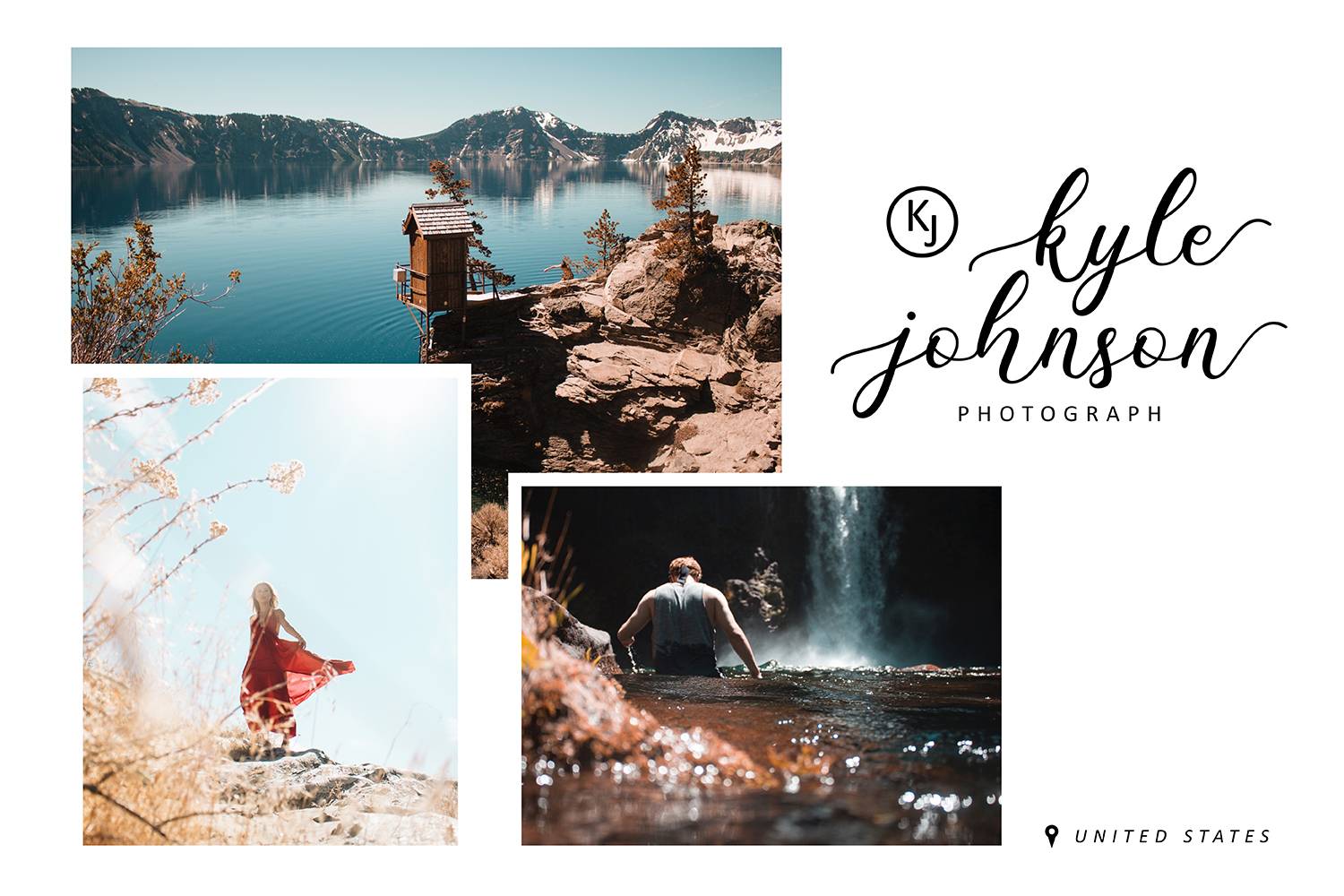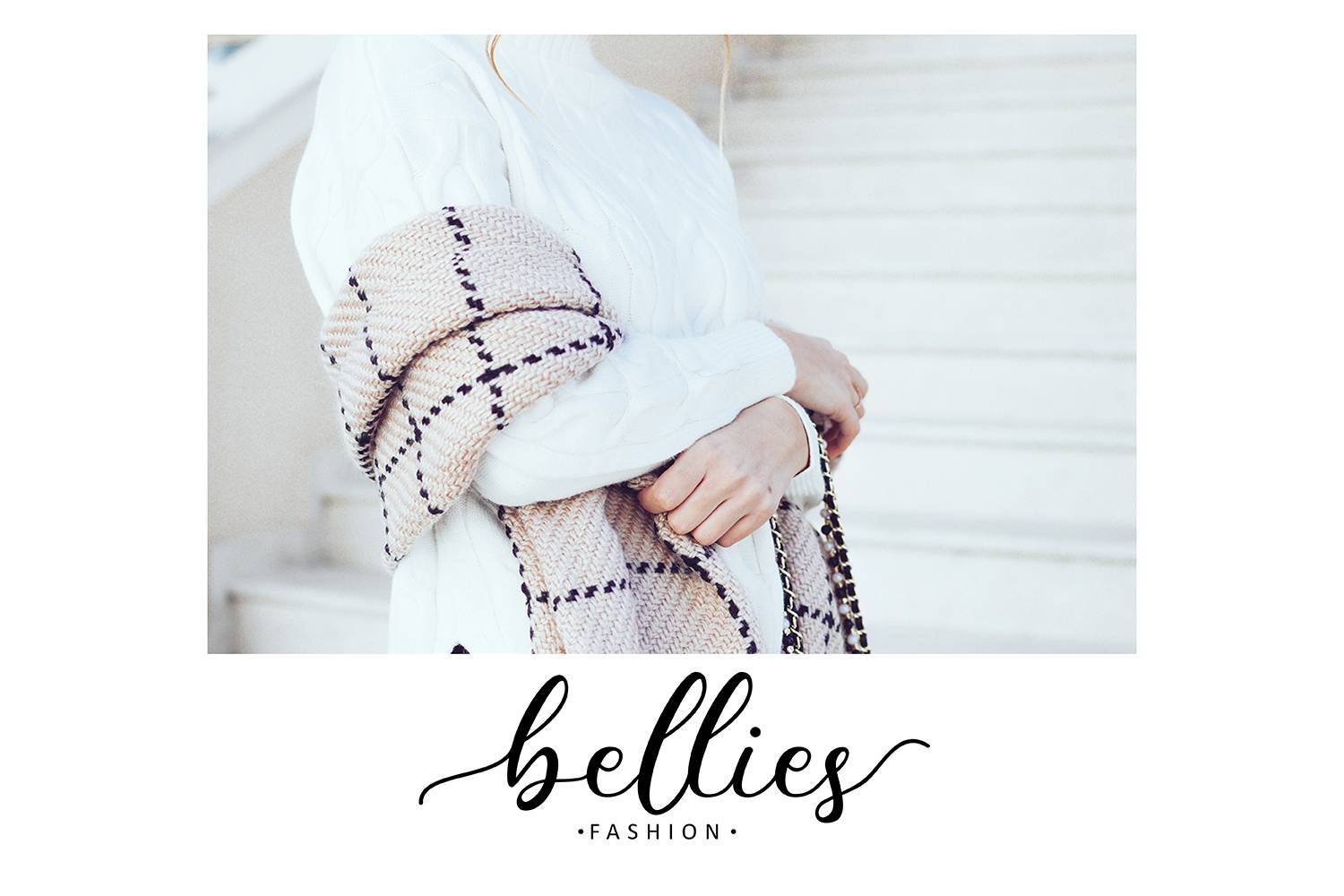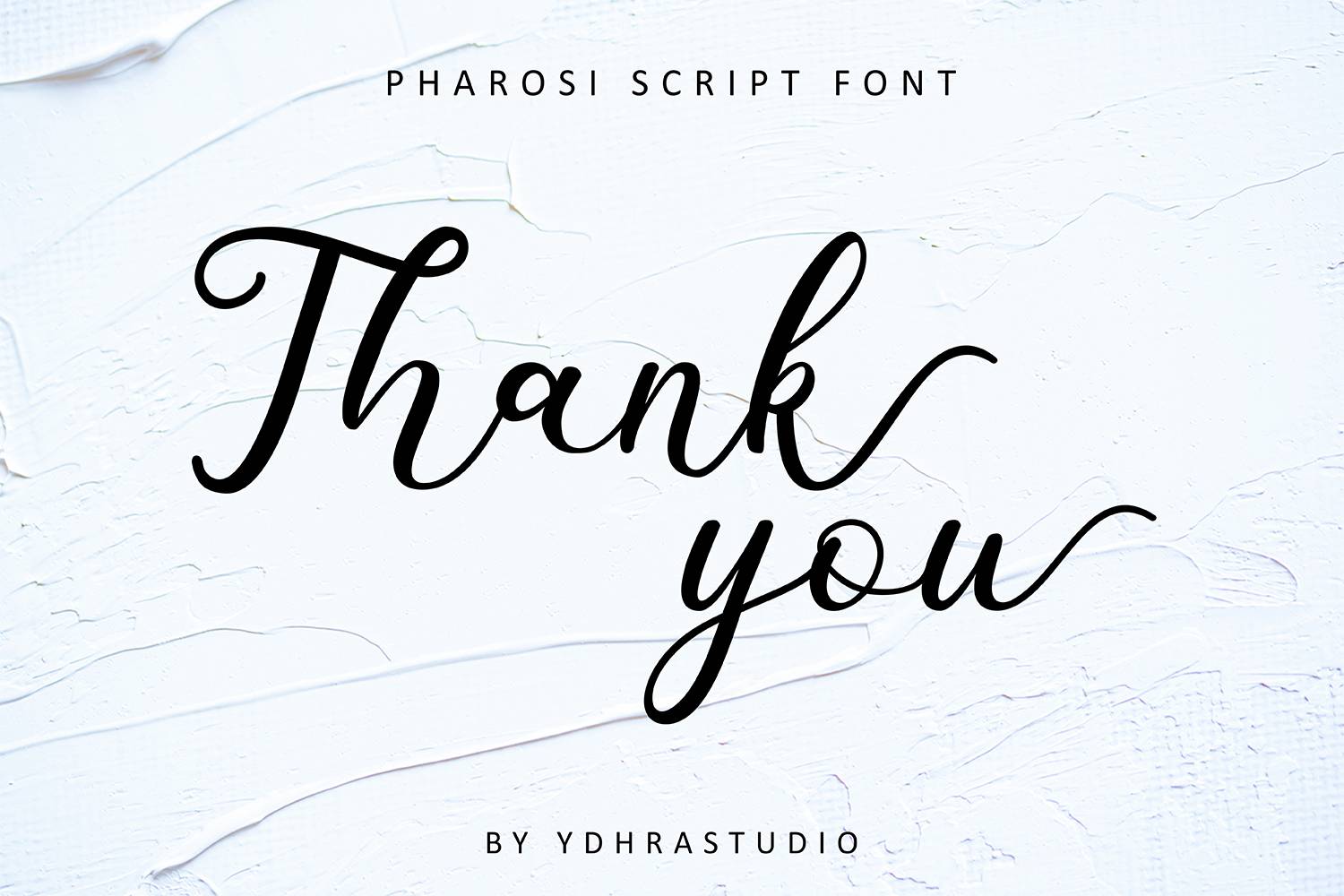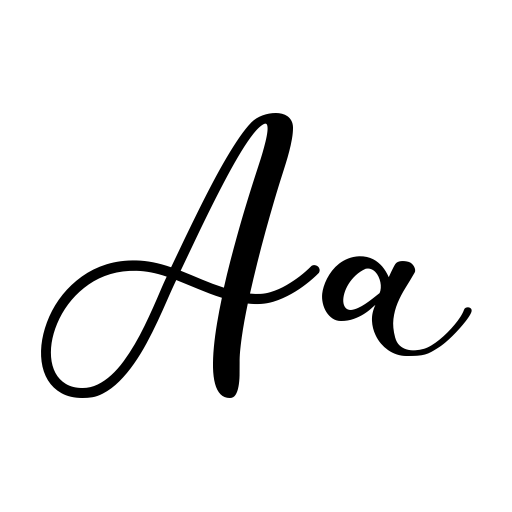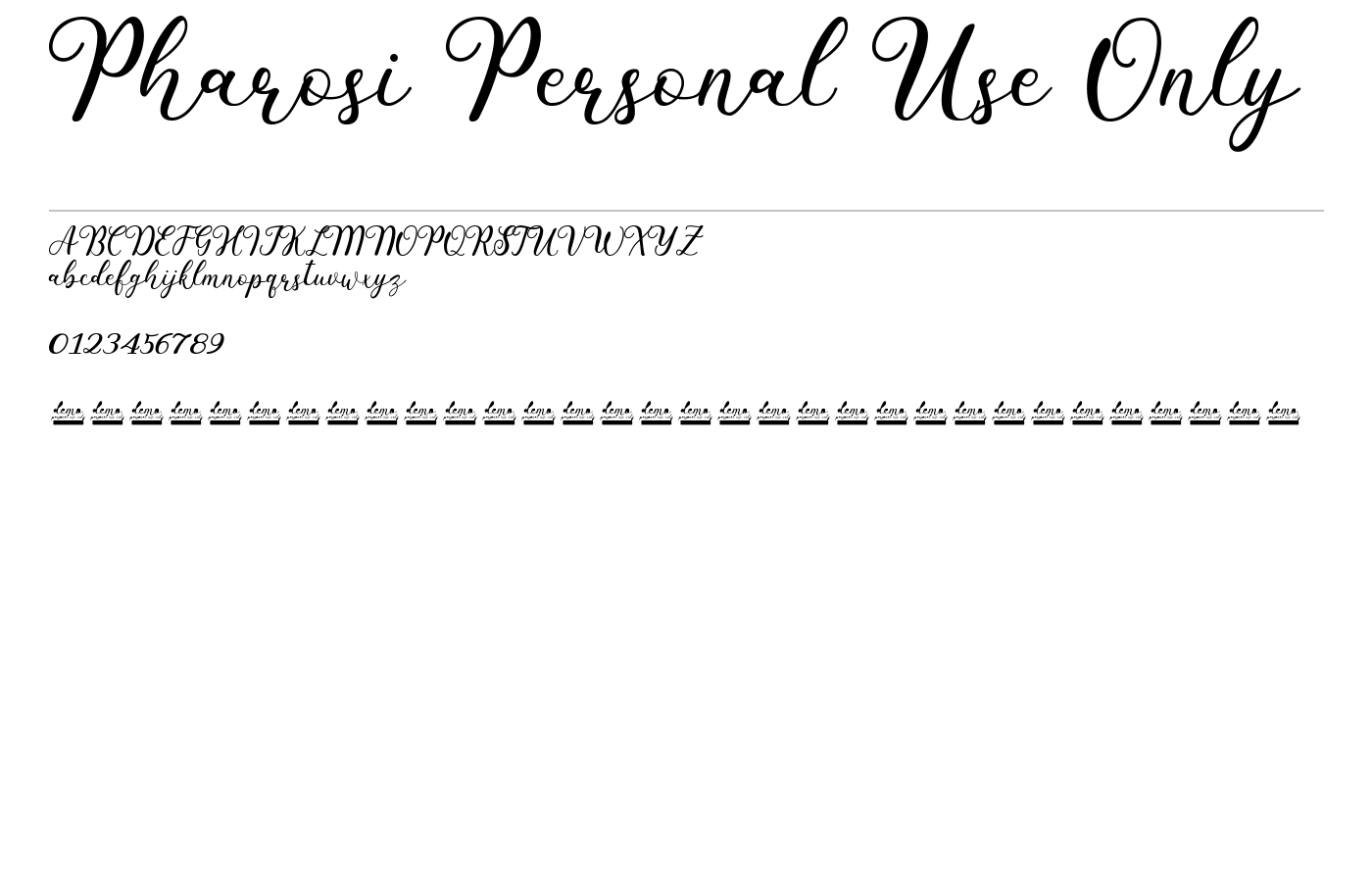
Pharosi is an elegant script font featuring smooth, flowing strokes and a refined, handwritten feel. Its delicate, medium-weight lines and graceful cursive letterforms bring a sense of sophistication, making it ideal for invitations, branding, and other creative projects that seek a personal, stylish touch. This font’s classic yet modern charm works beautifully for designs that need a warm, inviting, and artistic flair.
| Font family | Pharosi Font |
| Designer | Yudha Rahmat Ageng |